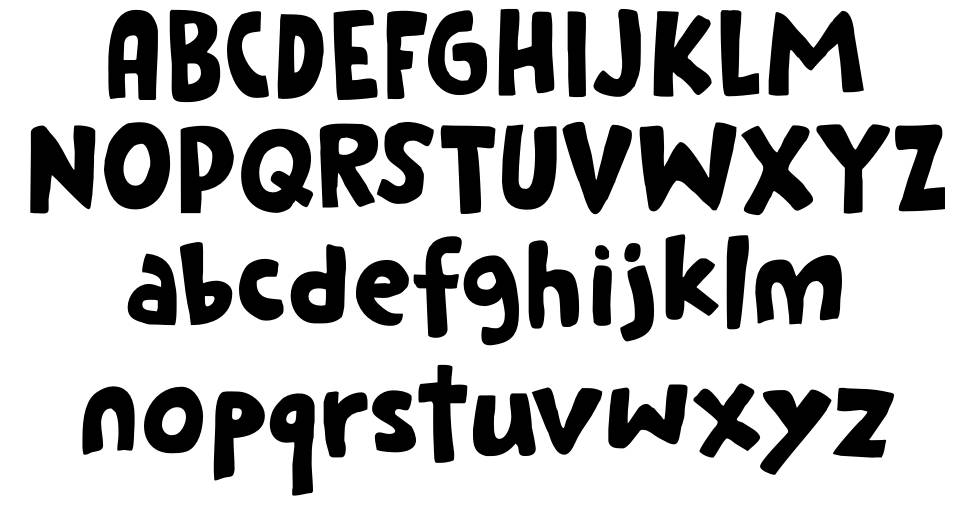
Web complete family of 2 fonts: Click now to create a custom image with your own words that you can download. Web this is the demo, bare bones, version of cookie crumble. Cookie crumble contains 2 styles and family package options. Cookie crumble font family was designed by david kerkhoff and published by hanoded.
Web complete family of 2 fonts: I just needed something that. Click now to create a custom image with your own words that you can download. Web cookie crumble hand display • 2 fonts by hanoded cookie crumble regular font size genki desu hanoded 2 styles from $15.00 bunny daydream hanoded 2 styles from $15.00 reluctant aviator hanoded 2 styles..
Web complete family of 2 fonts: If you are going to use it commercially, buy the full version, which comes with kerning, embedding rights, all. Cookie crumble contains 2 styles and family package options. I just needed something that. It is free for personal use only.